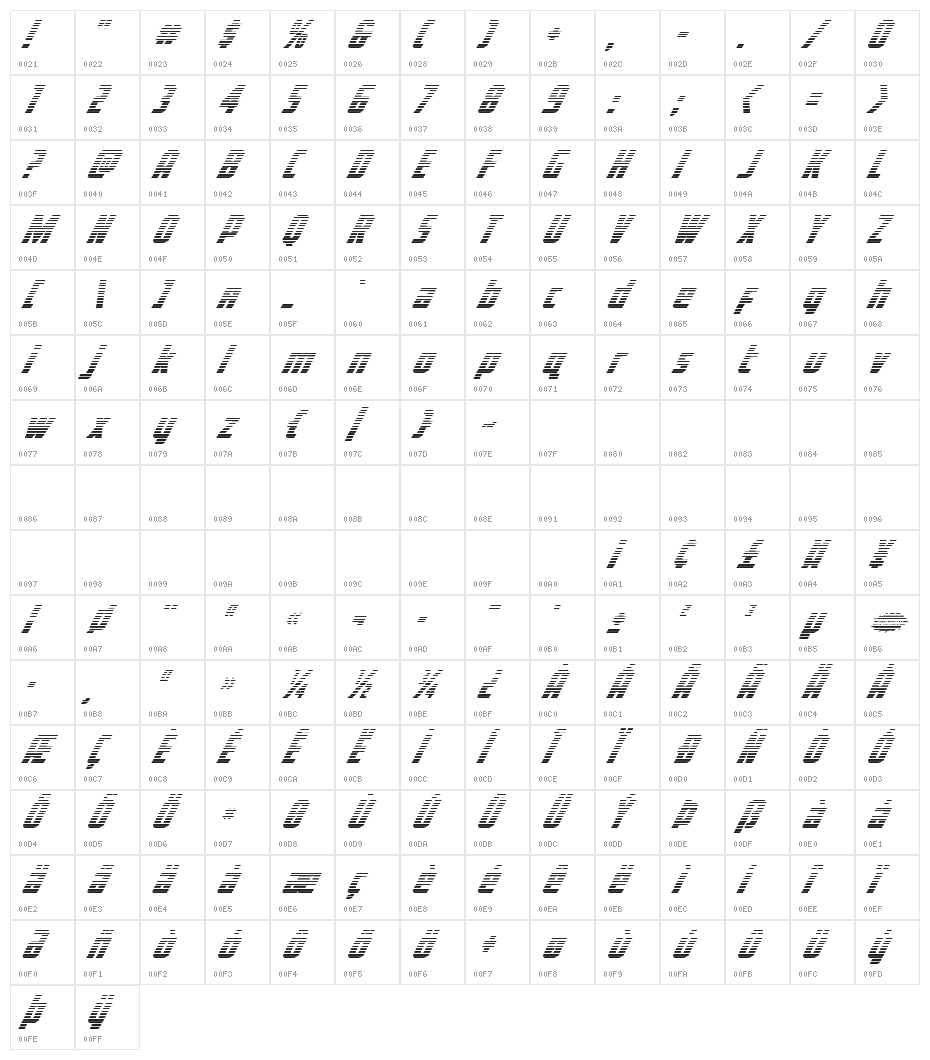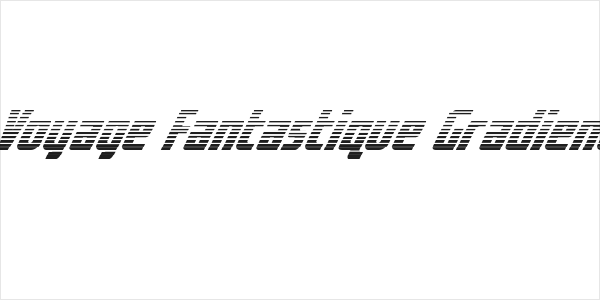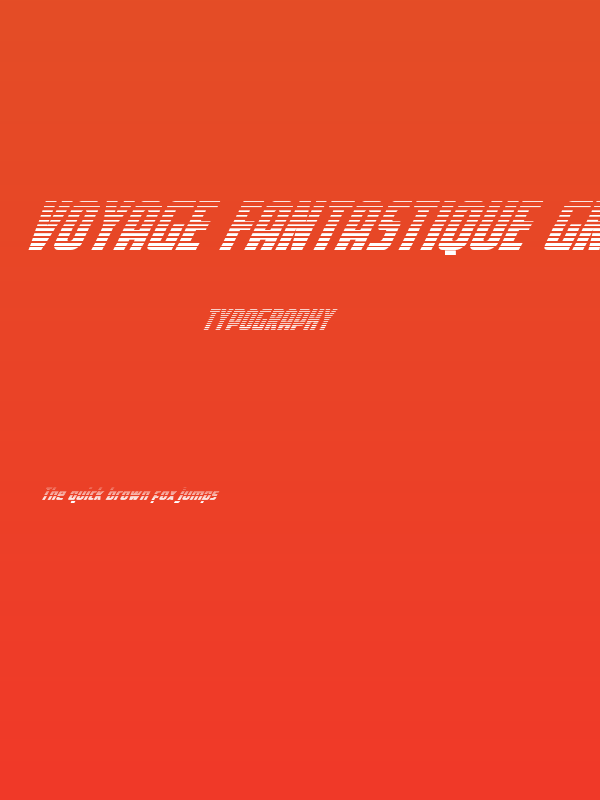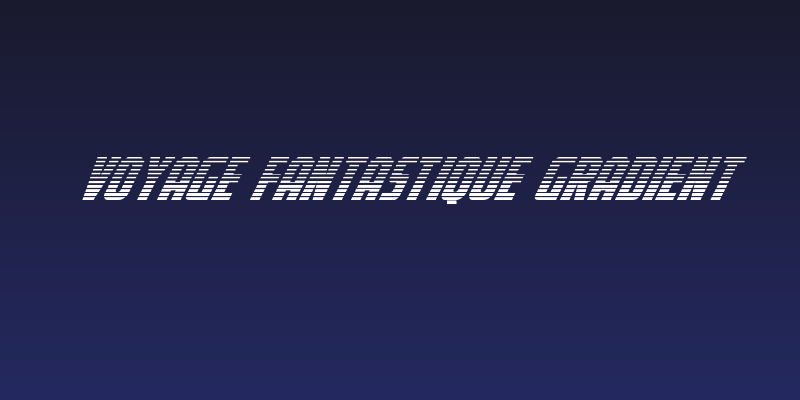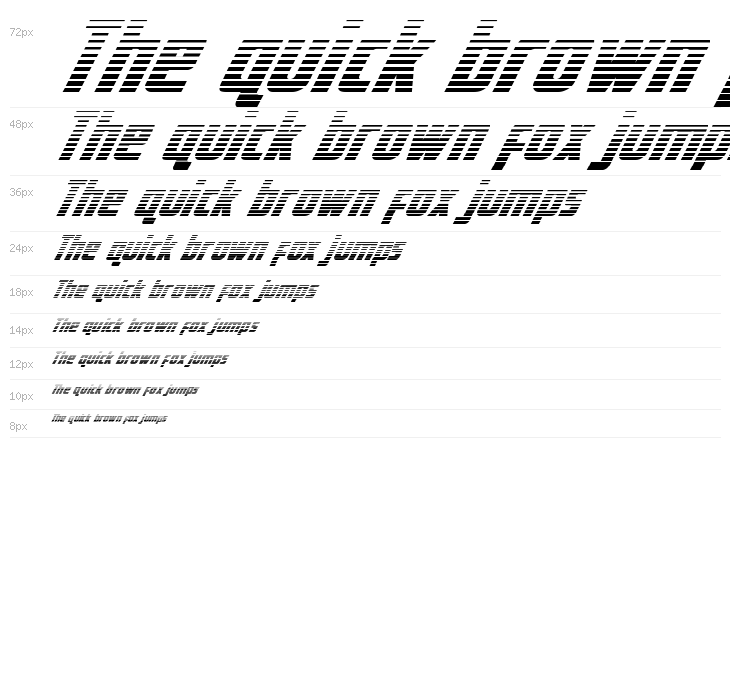
Voyage Fantastique Gradient Font
Voyage Fantastique Gradient Description
This font features a unique, futuristic design with a gradient effect that gives the impression of movement or speed. The characters are composed of horizontal lines that vary in thickness, creating a dynamic and eye-catching appearance. The uppercase and lowercase letters maintain a consistent style, with sharp angles and a slightly condensed form. The numbers and special characters follow the same design principles, ensuring uniformity across the font. This style is particularly suited for projects that require a modern and innovative look.
| Proposed Projects | Ideal for sci-fi themed posters, tech company logos, video game titles, and modern digital interfaces. |